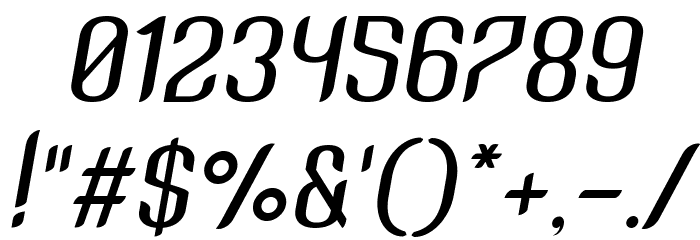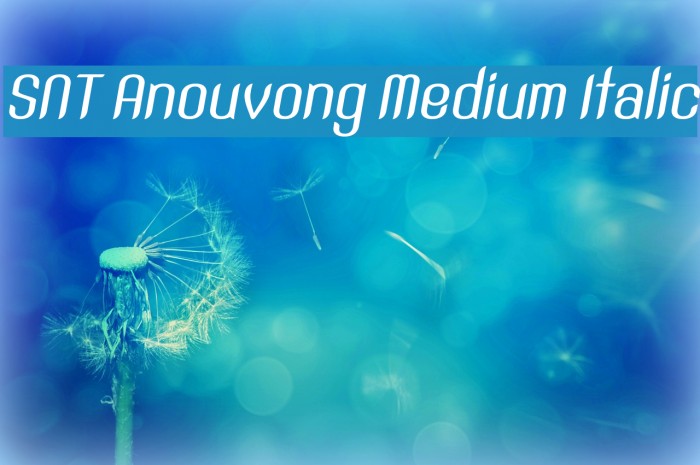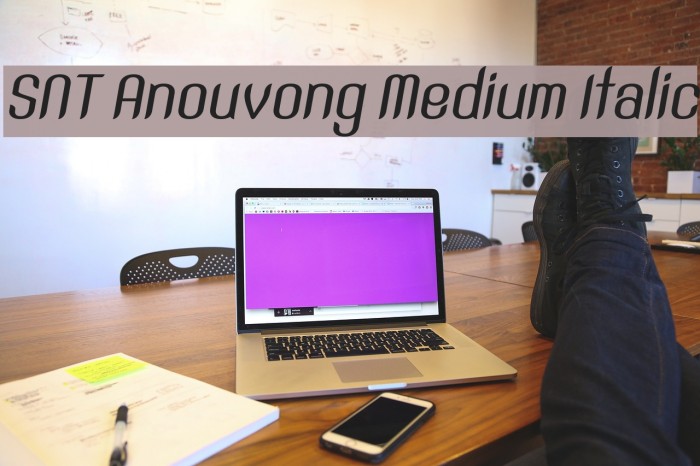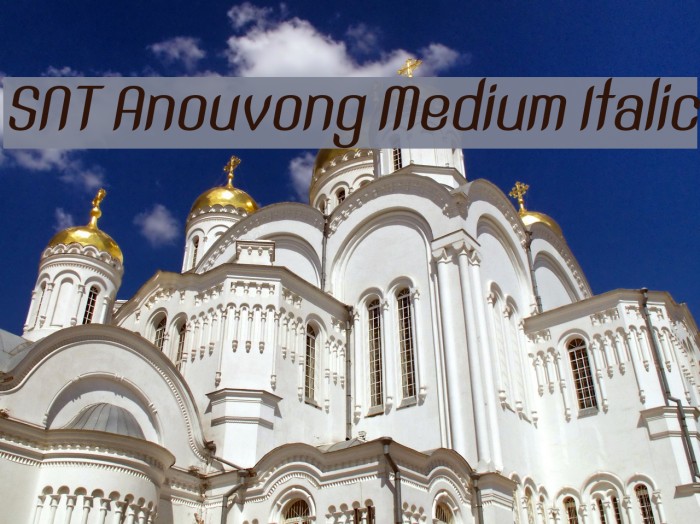
SNT Anouvong Medium Italic Font
This font features a sleek and modern design with a distinct italic slant, giving it a dynamic and forward-moving appearance. The characters are elongated with smooth curves and a consistent stroke width, creating a harmonious and fluid look. The uppercase letters are bold and commanding, while the lowercase letters maintain a balanced and approachable feel. The numerals are clear and easily distinguishable, making them suitable for various applications. Special characters are well-integrated, maintaining the overall aesthetic of the font. This typeface is versatile, offering a contemporary style that can enhance both digital and print media.
A sleek, modern italic font with smooth curves and consistent stroke width.
• Proposed Projects: Ideal for branding, advertising, and editorial design projects that require a modern and dynamic touch.
• Category: Sans-Serif
• Bold: No
• Italic: Yes
• Weight: Regular
• Width: Normal
• Character Spacing: Normal
• Contrast: Low
• Overall Style: Modern
• Use Case: Headlines, Logos, Branding